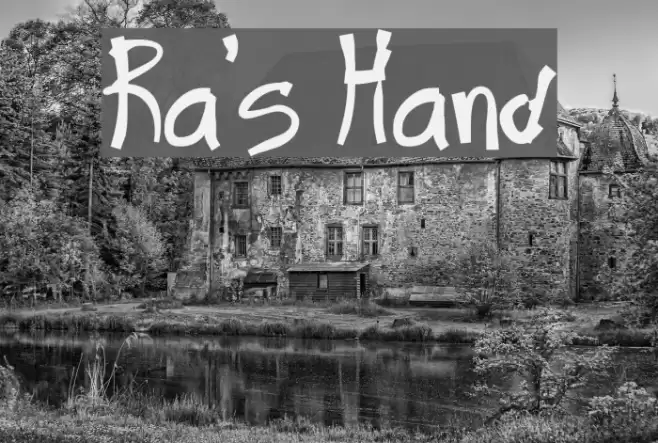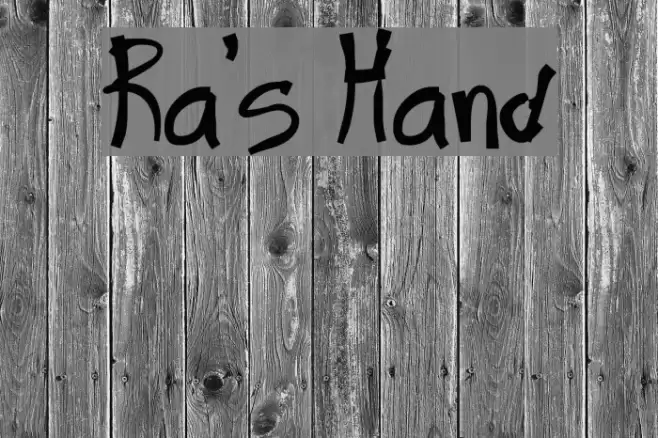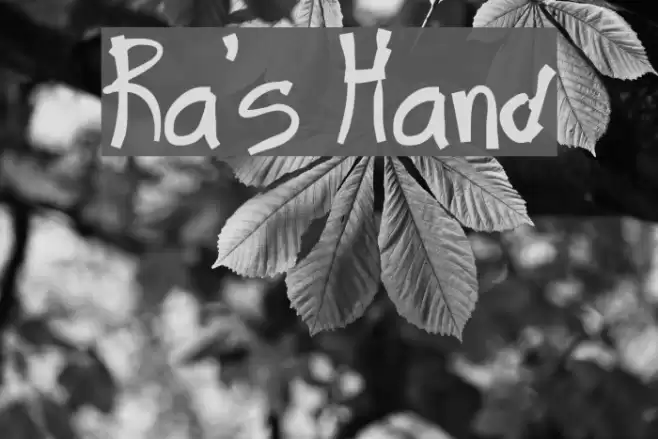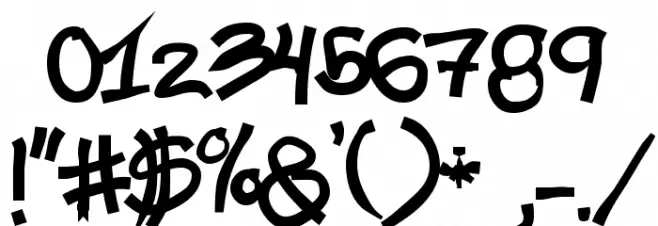
Ra's Hand Font
Ra's Hand Description
This font features a bold and expressive handwritten style, characterized by its irregular and playful letterforms. The uppercase and lowercase letters exhibit a dynamic flow, with varying stroke widths that add a sense of movement and energy. The numbers and special characters maintain this lively aesthetic, making the font suitable for creative and informal applications. Its unique style captures attention and conveys a sense of fun and spontaneity, making it ideal for projects that require a personal touch.
A bold, expressive handwritten font with dynamic and playful letterforms from Handwritten fonts.
- Proposed Projects: Ideal for greeting cards, posters, children's books, and creative branding projects.